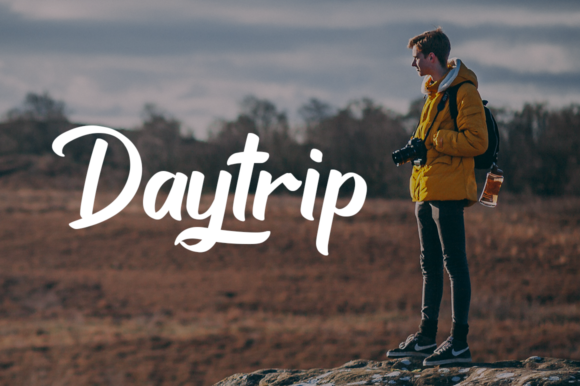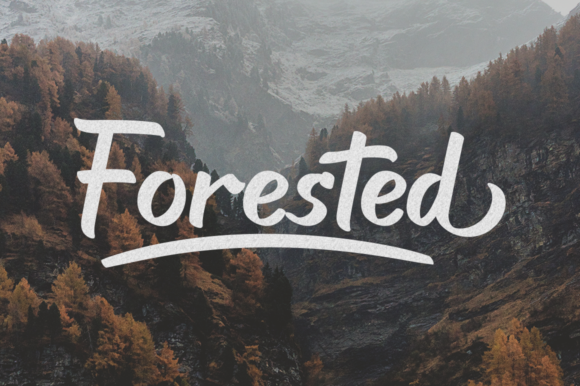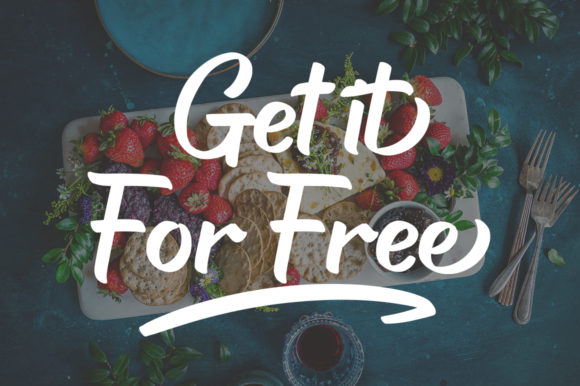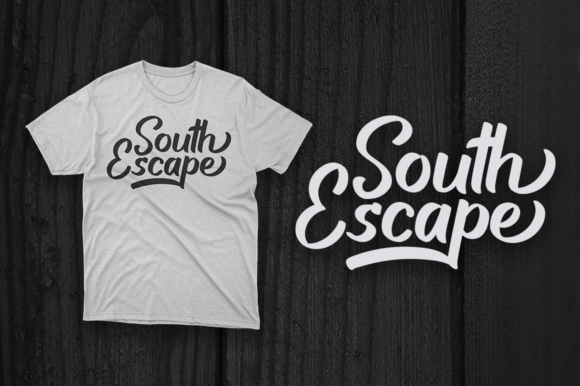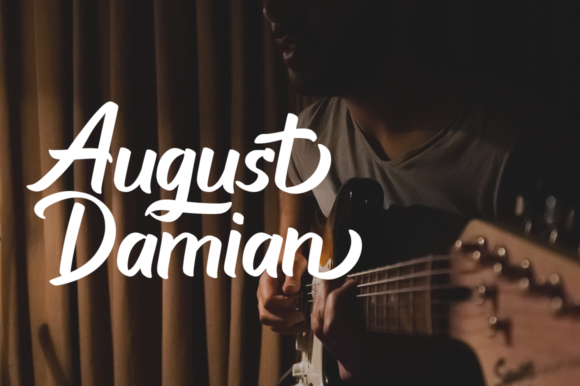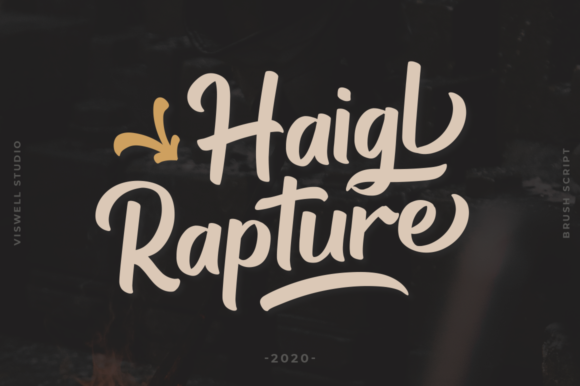
Discover the Elegance of Haigl Rapture Font: Elevate Your Designs with a Timeless Touch
Are you on the hunt for a font that exudes elegance and sophistication? Look no further than the Haigl Rapture Font. This stunning, flowing handwritten font is designed to add a touch of refinement to your favorite projects. With its incredibly distinct and timeless style, Haigl Rapture is sure to capture your heart and inspire your creativity.
The Characteristics of Haigl Rapture Font
Haigl Rapture is a beautifully crafted font that boasts an elegant touch. Its flowing lines and curves create a sense of movement and fluidity, making it perfect for designs that require a sense of dynamism. The font’s handwritten nature gives it a personal and intimate feel, making it ideal for projects that require a touch of warmth and personality.
One of the standout features of Haigl Rapture is its unique and distinctive style. The font’s letters are carefully crafted to create a sense of continuity and flow, making it perfect for use in a variety of design applications, from logos and branding to invitations and stationery.
Why Designers and Crafters Love Haigl Rapture Font
So, why do designers and crafters love Haigl Rapture Font? For starters, its timeless style ensures that your designs will never go out of fashion. Whether you’re creating a vintage-inspired design or a modern masterpiece, Haigl Rapture is the perfect choice. Its elegance and sophistication make it perfect for high-end designs, while its playful and whimsical nature make it ideal for more creative and artistic projects.
Another reason designers and crafters adore Haigl Rapture is its versatility. This font can be used in a wide range of design applications, from digital designs to print materials. Whether you’re creating a social media graphic, a blog post, or a marketing brochure, Haigl Rapture is the perfect choice.
How to Use Haigl Rapture Font in Your Designs
Using Haigl Rapture Font in your designs is easy. Here are a few tips to get you started:
- Pair Haigl Rapture with a simple sans-serif font to create a striking contrast.
- Use Haigl Rapture as a headline font to add a touch of elegance to your design.
- Don’t be afraid to get creative and try out new and innovative design ideas.
The Benefits of Using Haigl Rapture Font
There are many benefits to using Haigl Rapture Font in your designs. Here are just a few:
- Elegance and sophistication: Haigl Rapture adds a touch of refinement and luxury to your designs.
- Timeless style: Haigl Rapture’s classic style ensures that your designs will never go out of fashion.
- Versatility: Haigl Rapture can be used in a wide range of design applications, from digital designs to print materials.
- Unique and distinctive: Haigl Rapture’s unique style sets it apart from other fonts and ensures that your designs will stand out.
In conclusion, Haigl Rapture Font is a stunning, flowing handwritten font that is perfect for designers and crafters who want to add a touch of elegance and sophistication to their designs. With its timeless style, versatility, and unique and distinctive nature, Haigl Rapture is the perfect choice for a wide range of design applications. So why wait? Fall in love with Haigl Rapture and elevate your designs to new heights!